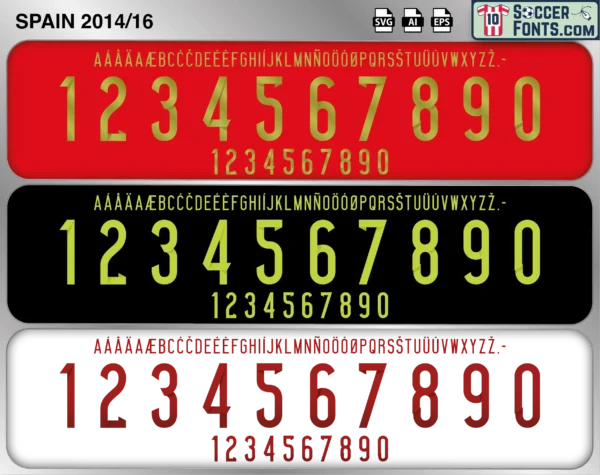
Spain 2014-16 Font
The Spain 2014-16 font is an editable soccer jersey lettering design in vector format inspired by the Spain kit style used during the 2014-16 football seasons. This football font artwork is prepared for football shirt recreations, custom jersey projects, football kit mockups and sports graphic design workflows.
The 2014-16 era marked the beginning of a transition for the Spanish national team following the conclusion of its dominant championship cycle. While several legendary figures remained involved, a new generation gradually emerged alongside established players such as Andrés Iniesta, Sergio Ramos, David Silva, Jordi Alba and Gerard Piqué. Spain focused on rebuilding its competitive identity while preparing for UEFA EURO 2016 in France. The squad also featured younger talents who would become important contributors in future international tournaments, helping the national team evolve after years of sustained success.
The Spain 2014-16 font became associated with a period of renewal and adaptation within Spanish football. Spain shirts from this era remain popular among football shirt collectors because of their connection with the final international years of several iconic players from the golden generation and the introduction of future stars. The Spain 2014-16 font reflects an important moment in the national team’s history as Spain worked to balance its remarkable football heritage with the demands of a changing international landscape, maintaining its status as one of the most influential football nations in the world.